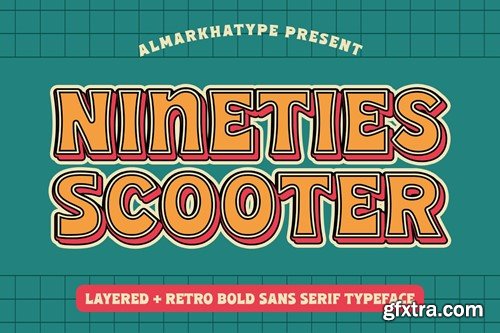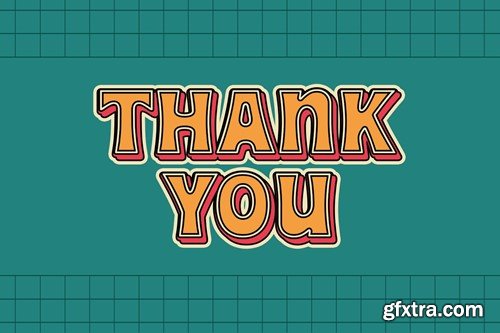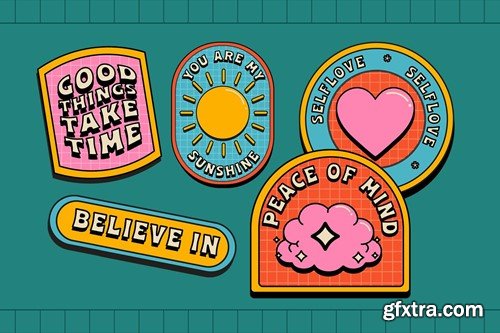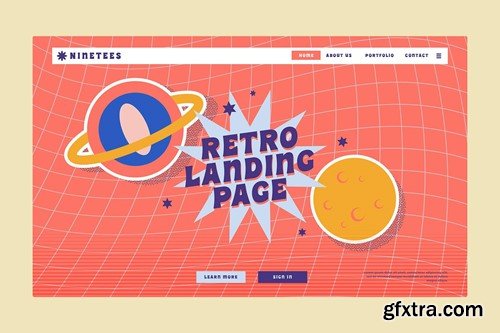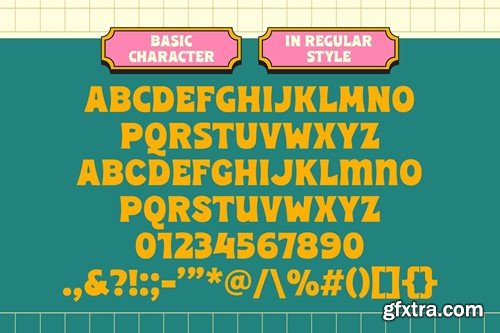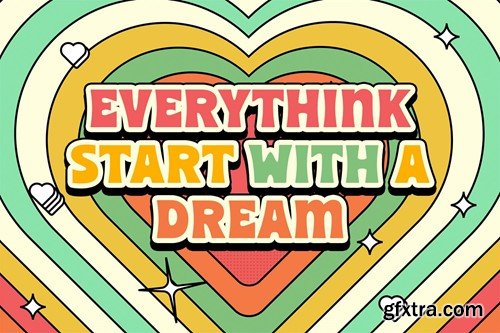
90’s Scooter - Retro Display Font
Elevate your designs with 90’s Scooter, a retro reverse contrast font crafted for playfulness and versatility. Tailored for attention-grabbing designs, it’s the go-to choice for brands seeking to make a bold statement and stand out. Featuring support for Latin multilingual characters, 90’s Scooter seamlessly integrates into all your international design projects. Its playful and youthful tone lends itself perfectly to crafting memorable designs, be it for a food brand or a lively event. Get ready to infuse your designs with vibrancy using this bold and playful font!